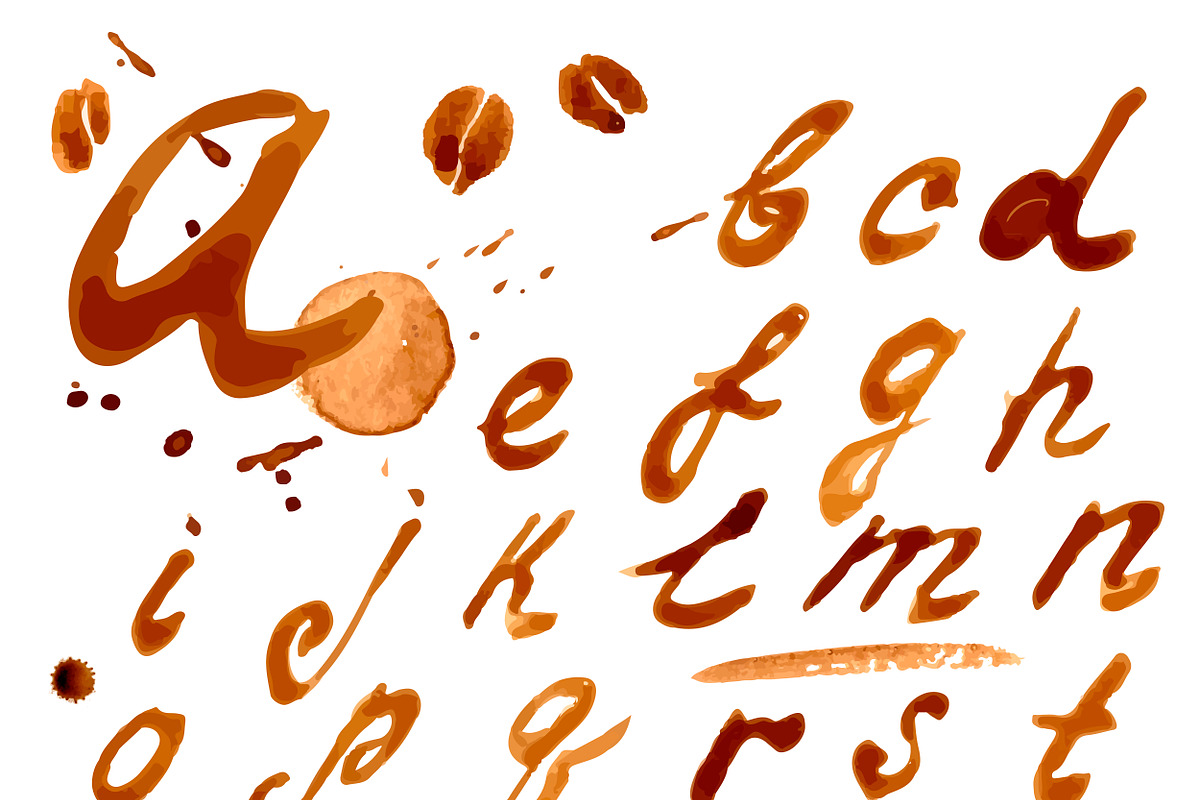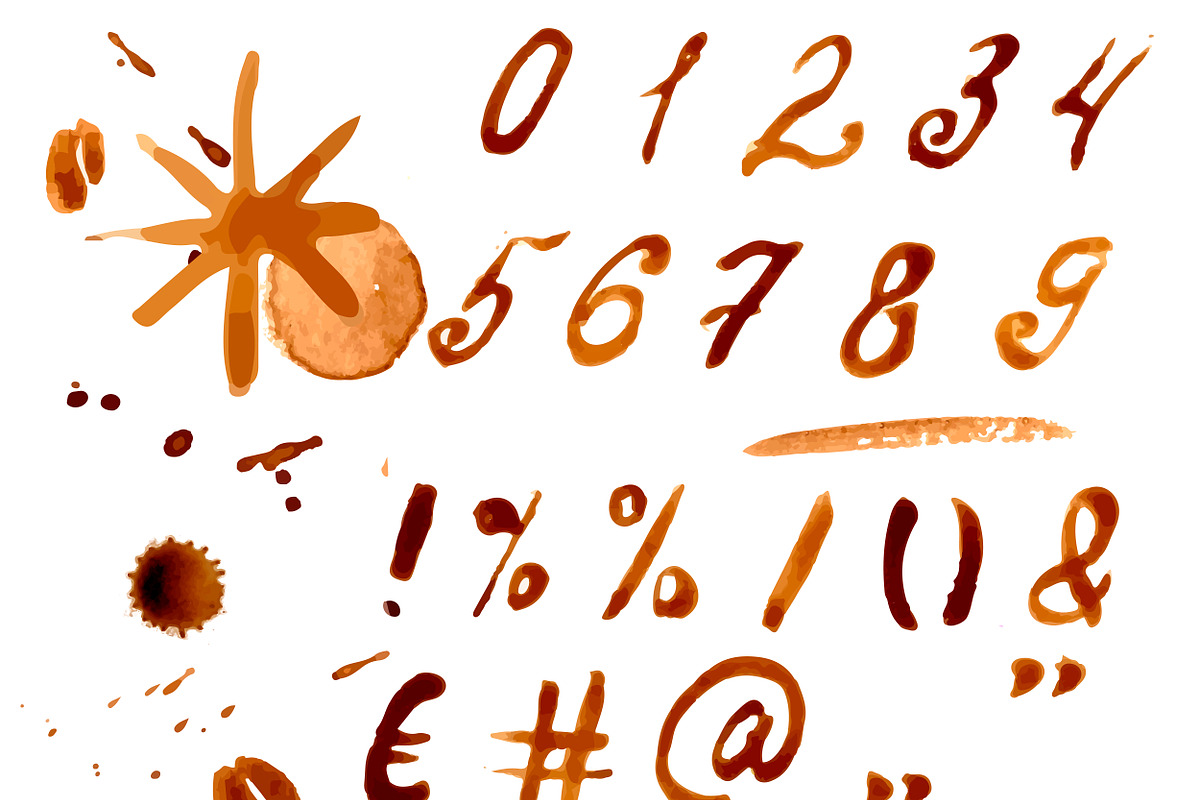
№12 Handwritten font coffee
№12 Handwritten font coffee by Rasveta is a font selected for branding, posters, packaging, typography.
Why №12 Handwritten font coffee is worth a look
№12 Handwritten font coffee by Rasveta fits naturally into Branding, posters, packaging, typography.